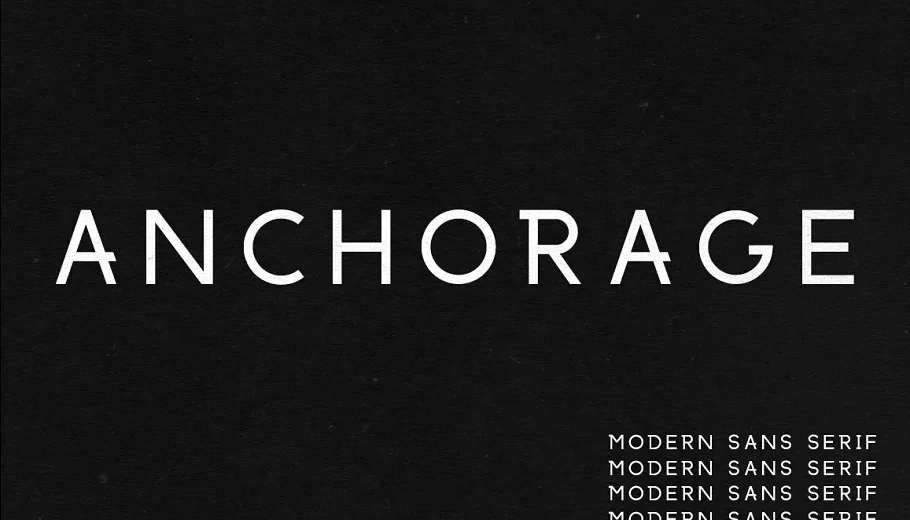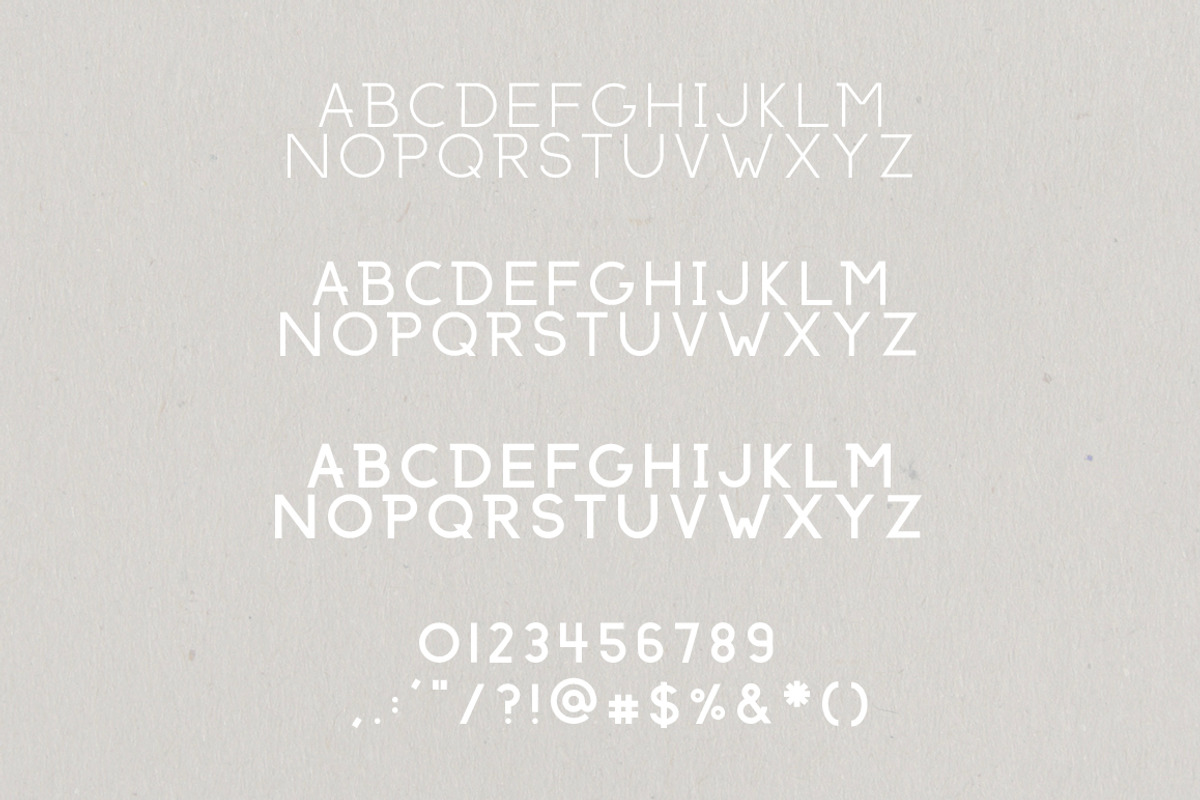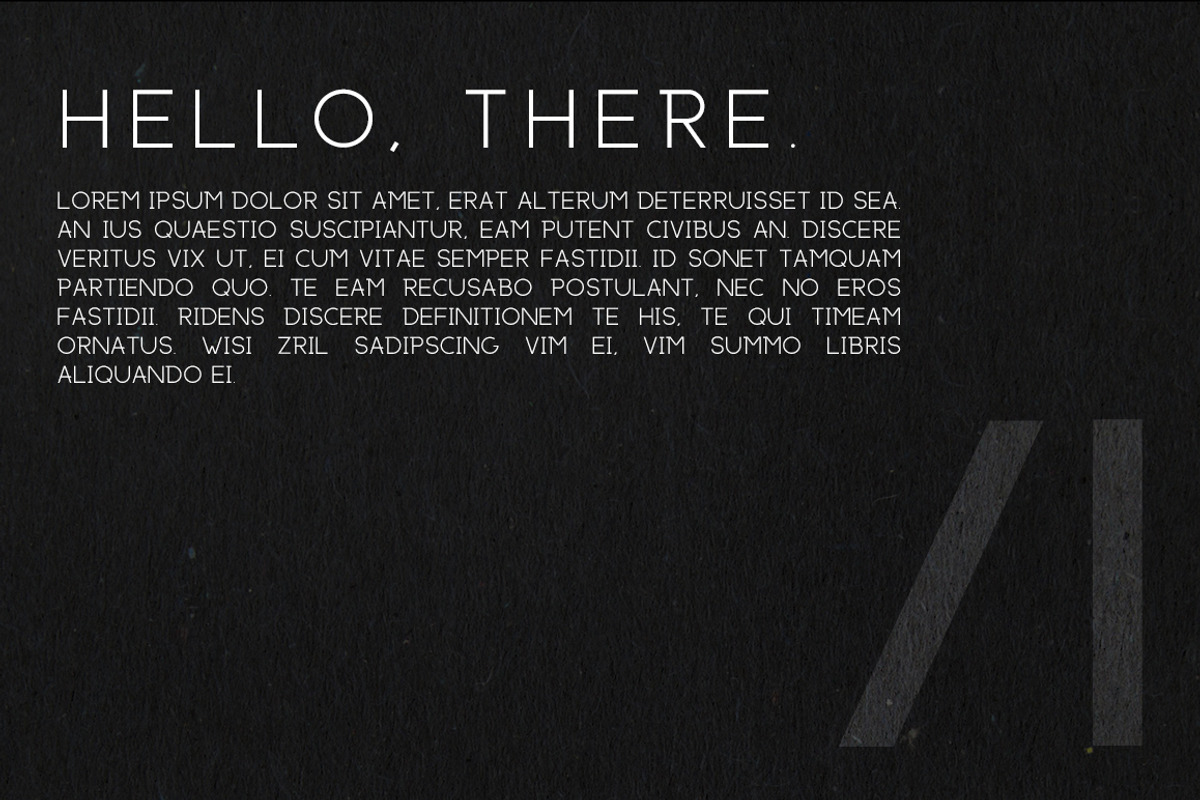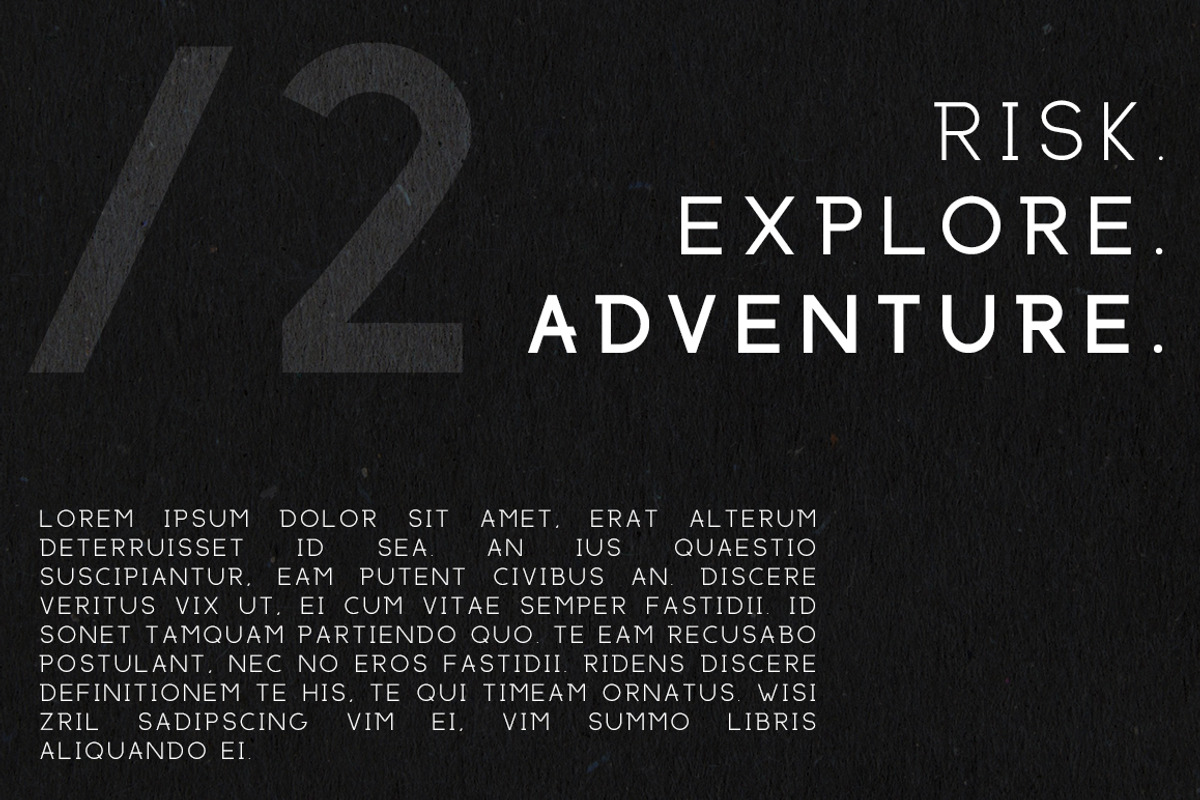
Anchorage Font
Anchorage is a beautiful all-caps multi-weight sans serif typeface that manages to be elegant while bold. This font is amazing for any kind of paper good, invitation, logo, wedding, and many other projects!
• Three weights
• Capital letters
• Numbers & punctuation
• Non-English characters
Anchorage Modern Sans Serif Font